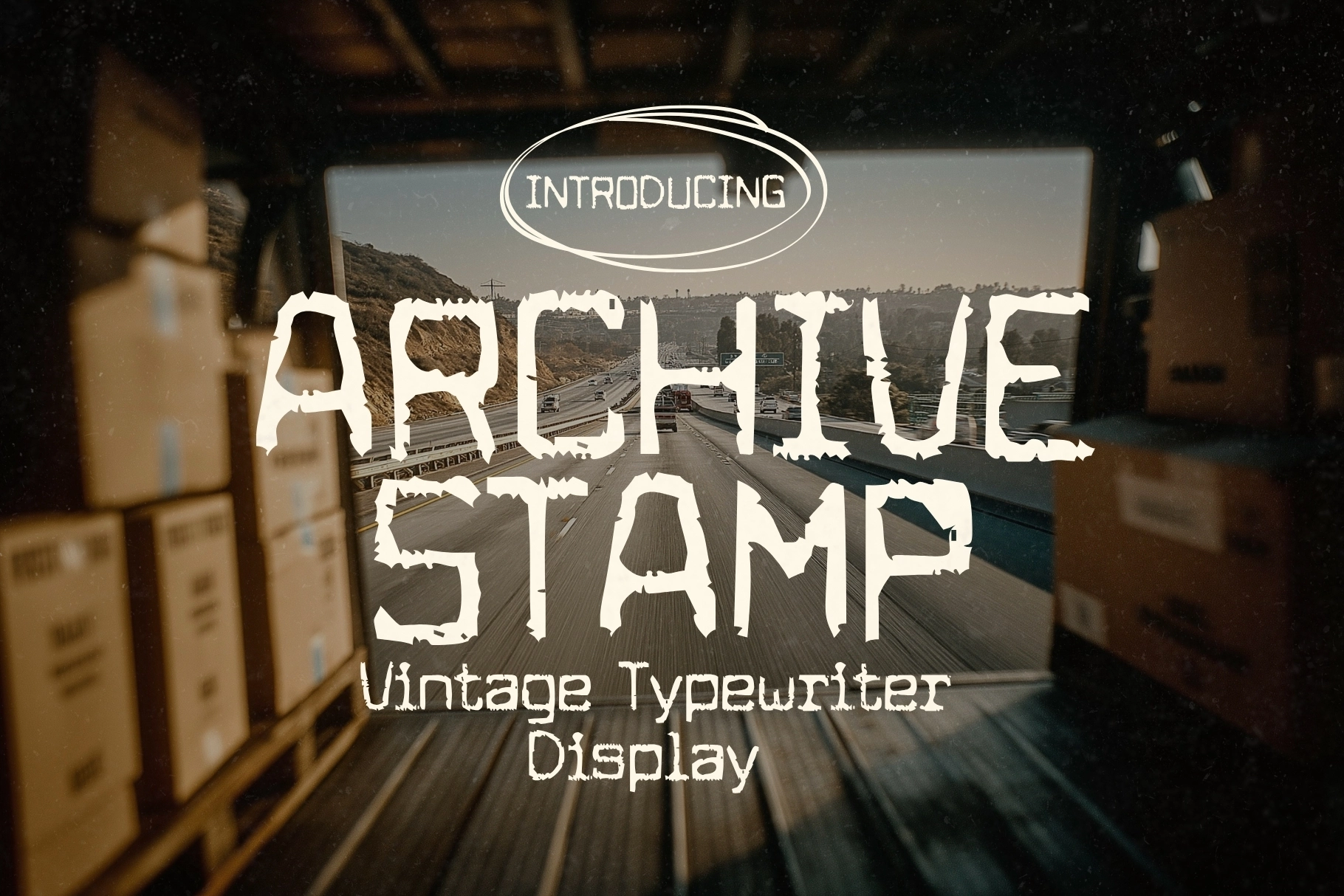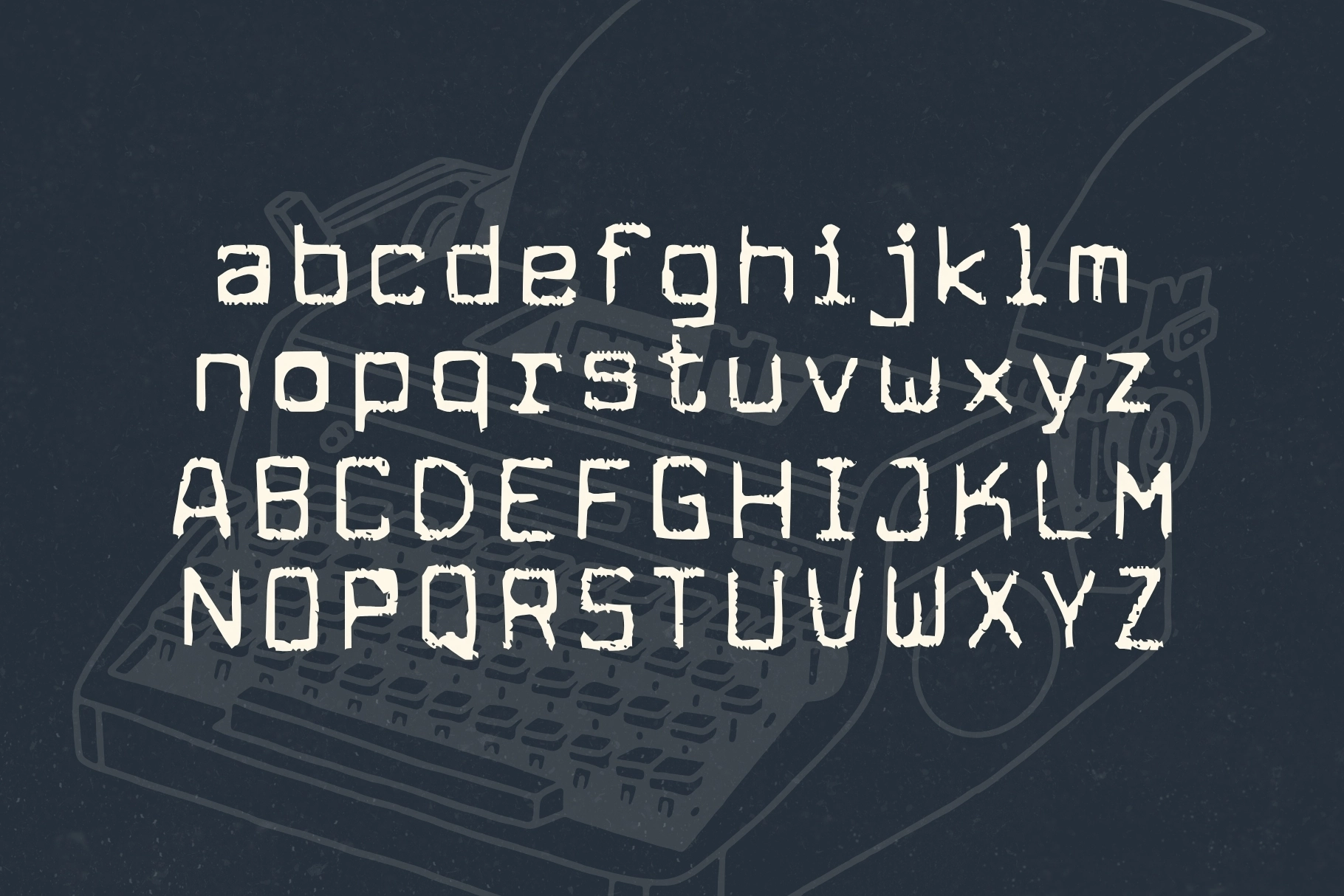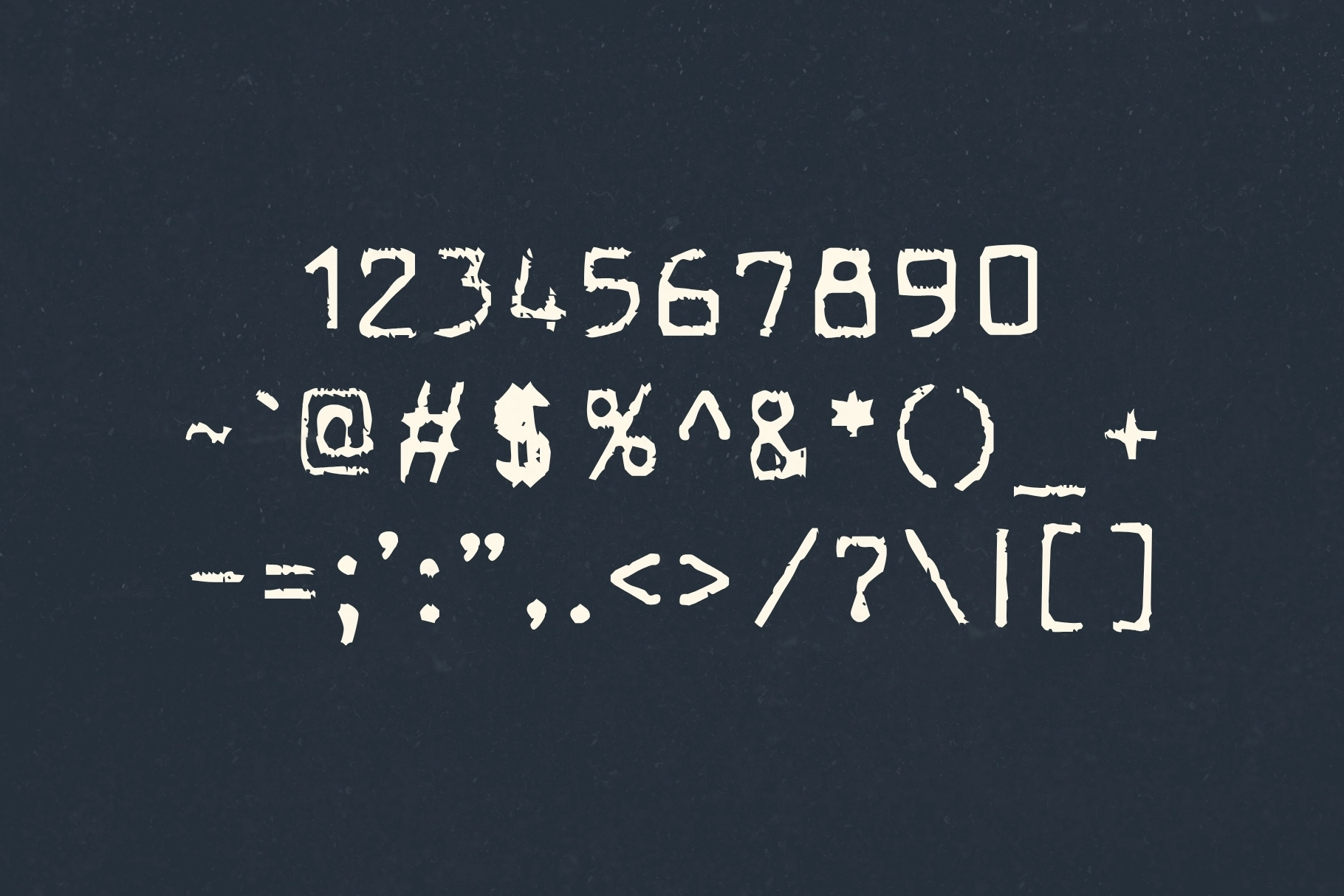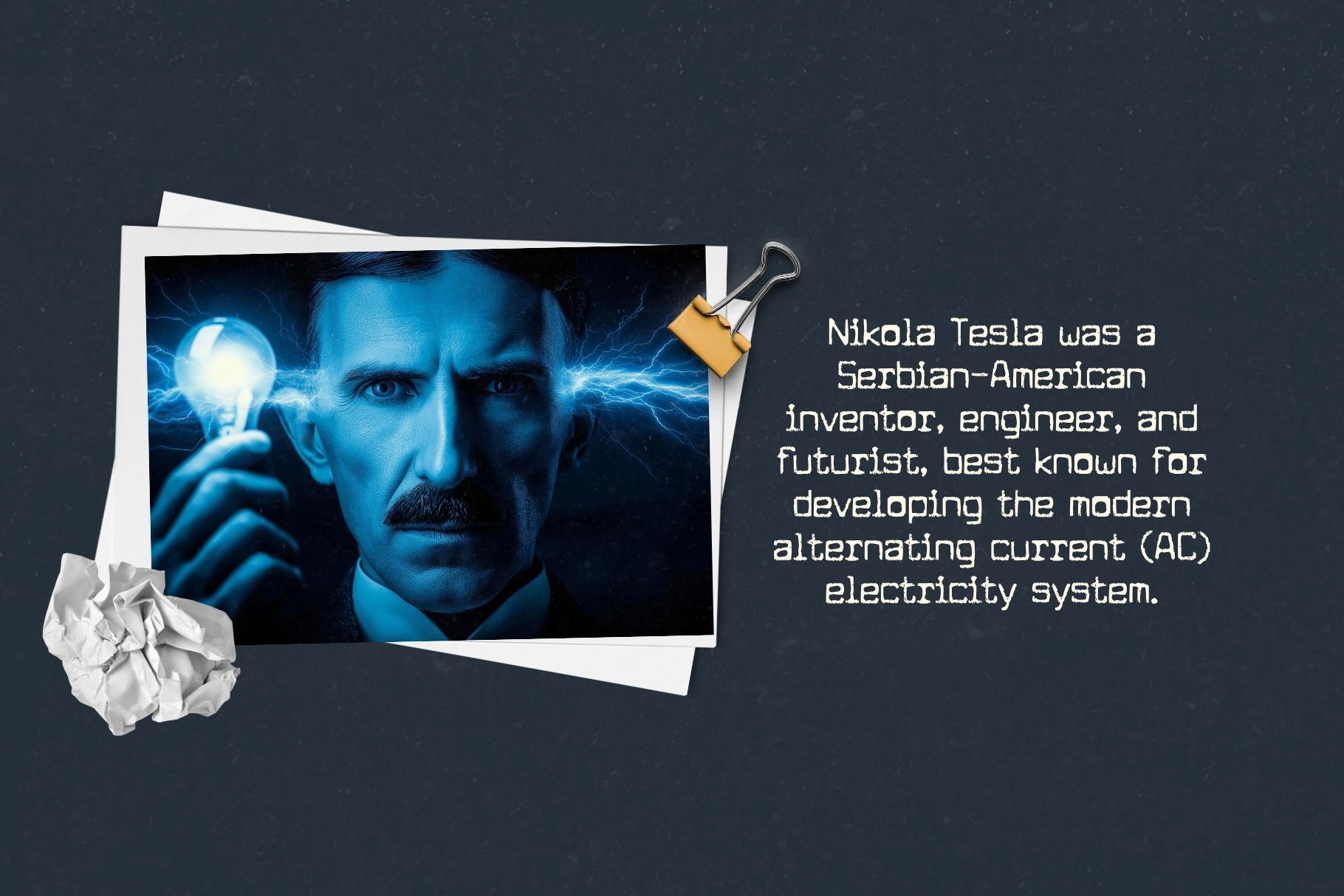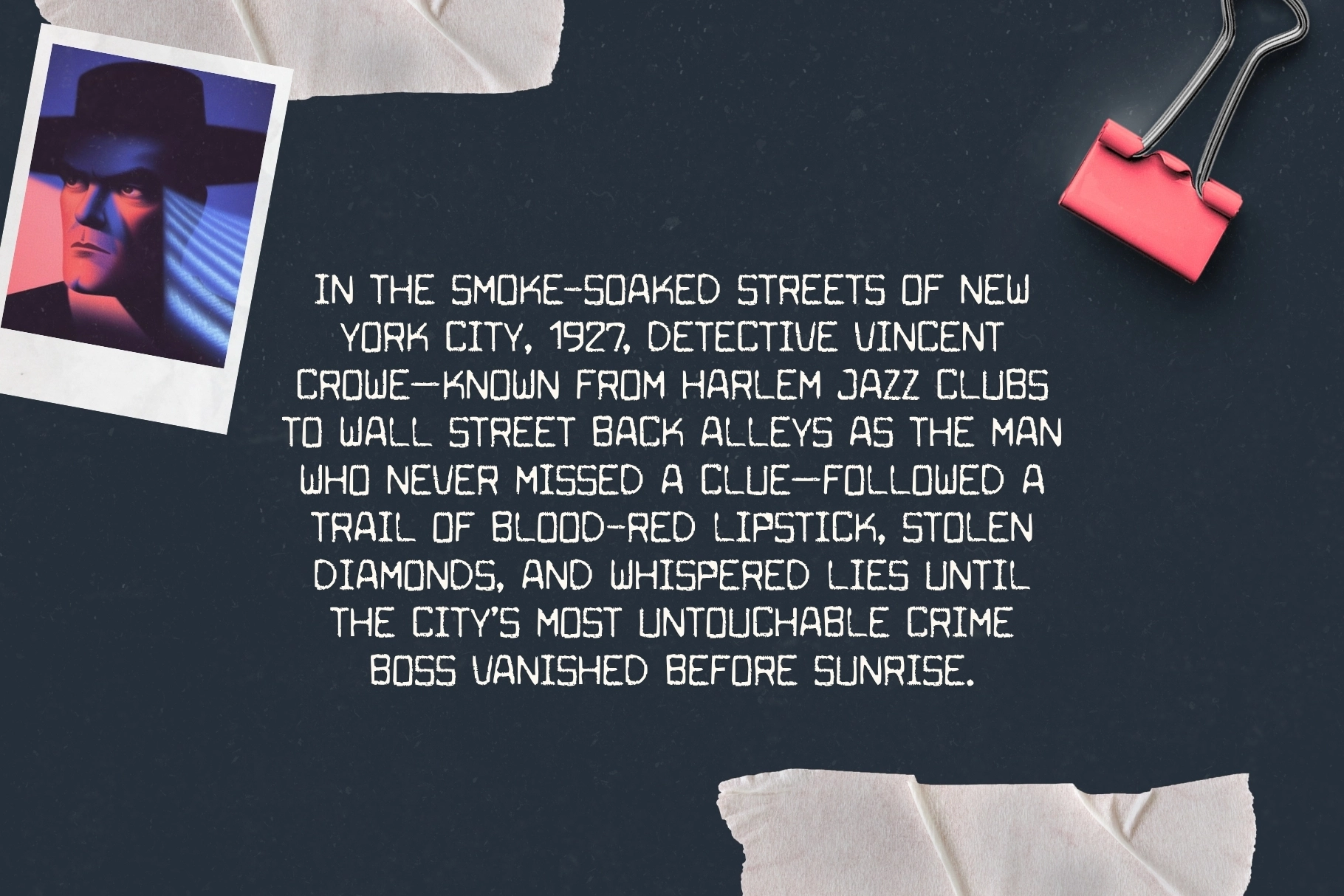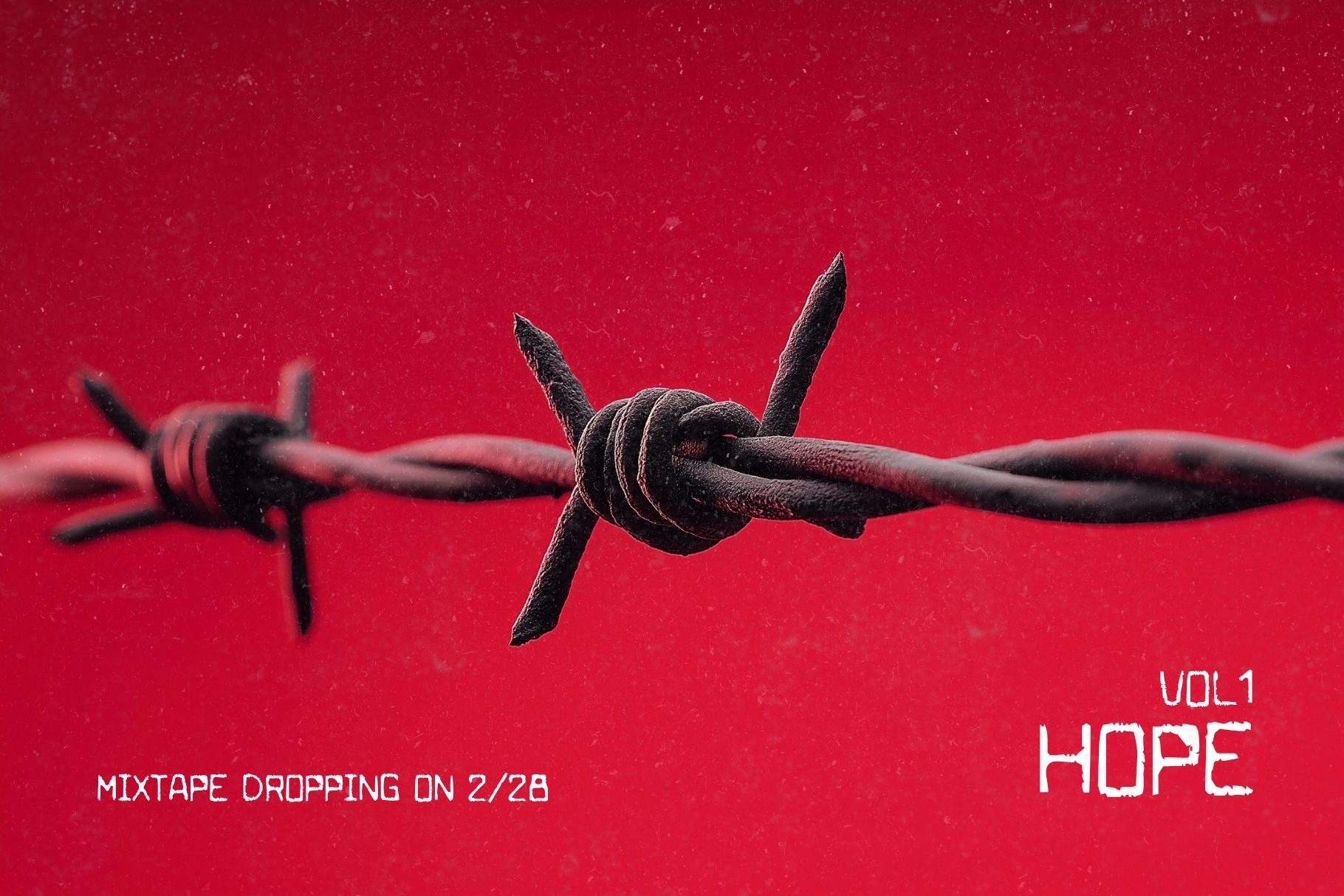
Archive Stamp - Vintage Typewriter Display Font
This vintage display font has rough, squared letterforms with chipped edges, uneven ink breaks, and a hard mechanical rhythm. It carries the look of stamped files, old typewriter keys, case notes, shipping labels, and official paperwork that has been handled by several suspicious clerks.
Archive works well for noir posters, book covers, editorial titles, mystery branding, album artwork, archive labels, document graphics, packaging, certificates, zines, game titles, escape room materials, museum graphics, and more. Its distressed texture gives short words a blunt archival weight, while the lowercase set keeps longer copy readable without sanding off the grit.
• Distressed letter texture
• Vintage typewriter character